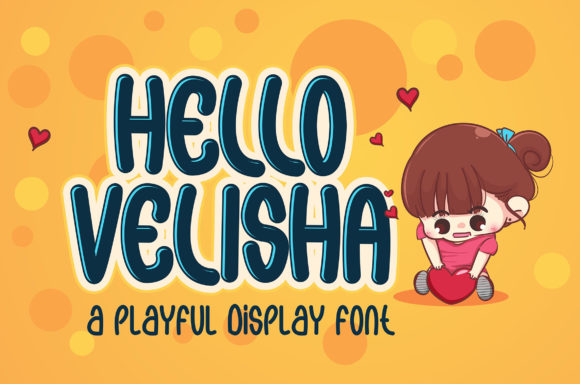
Step into a world of captivating designs with Hello Velisha Font, your ultimate companion for crafting magic in the digital realm. This playful display font, brought to life by the creative minds at Cikareotype, is a masterpiece that invites you to unleash your imagination. Whether you're a seasoned designer or just starting your creative journey, Hello Velisha Font is your key to crafting designs that make a statement.
With its whimsical charm and eye-catching style, Hello Velisha Font is perfect for adding a touch of delight to your digital creations. Whether you're designing invitations, posters, logos, or simply adding a personal touch to your social media posts, this font will transform your words into captivating works of art.
Dive into the endless possibilities offered by Hello Velisha Font and let your creativity soar. Create personalized greeting cards and add a dash of cheer to your loved ones' special days. Unleash your inner artist and design posters that burst with life and capture the attention of your audience. Let your imagination run wild as you create eye-catching logos that leave a lasting impression.
With Hello Velisha Font, crafting captivating designs has never been easier. Its user-friendly interface makes it accessible to designers of all skill levels, allowing you to bring your creative visions to life effortlessly. Whether you're working on a professional project or simply exploring your creative side, this font is your perfect companion.